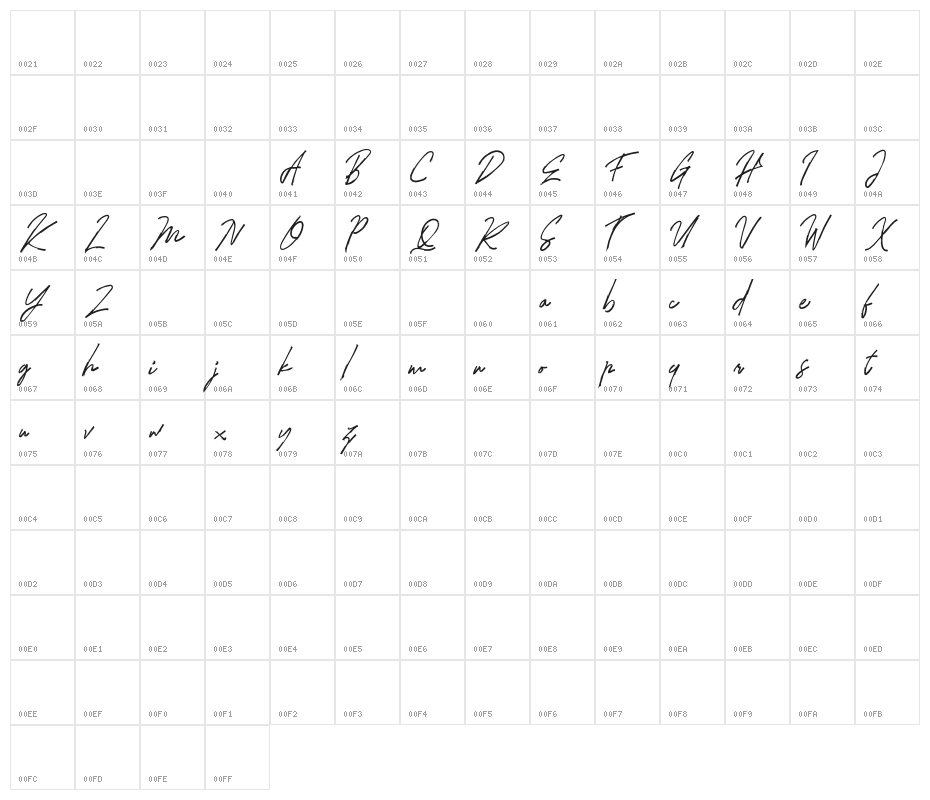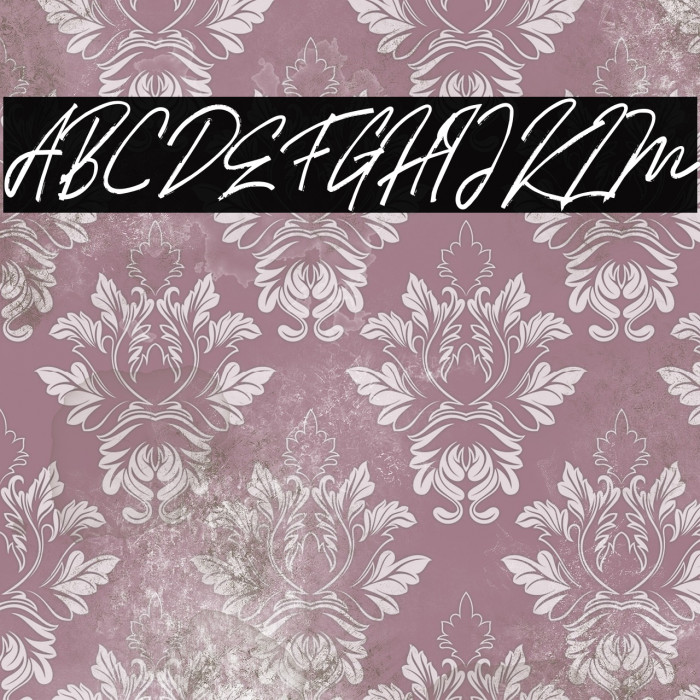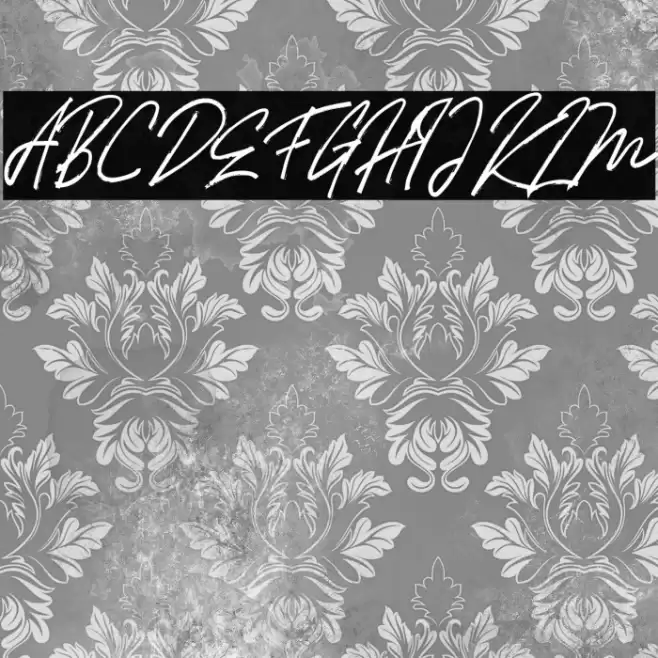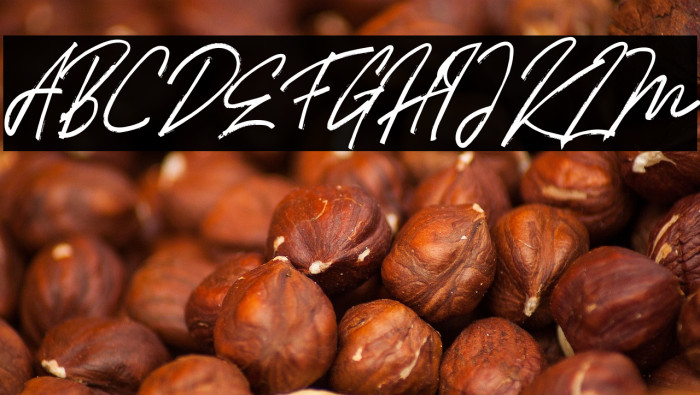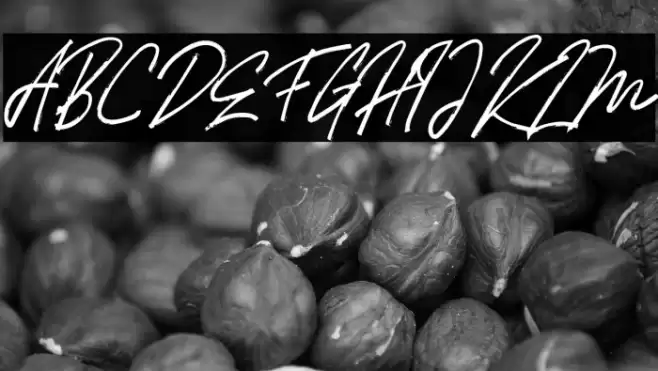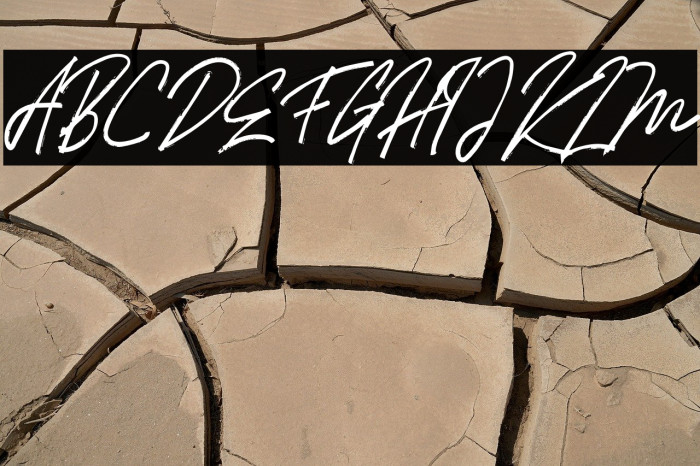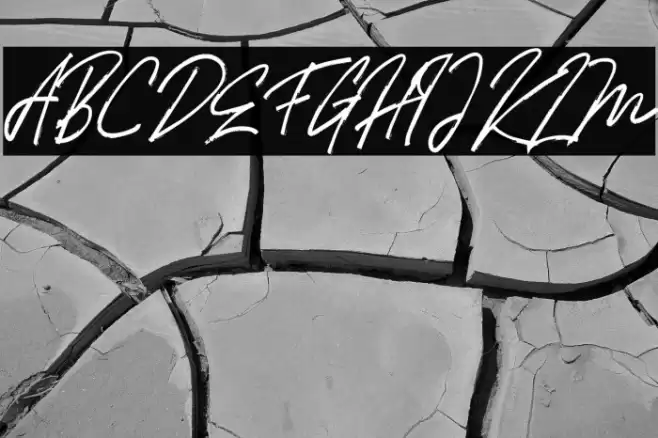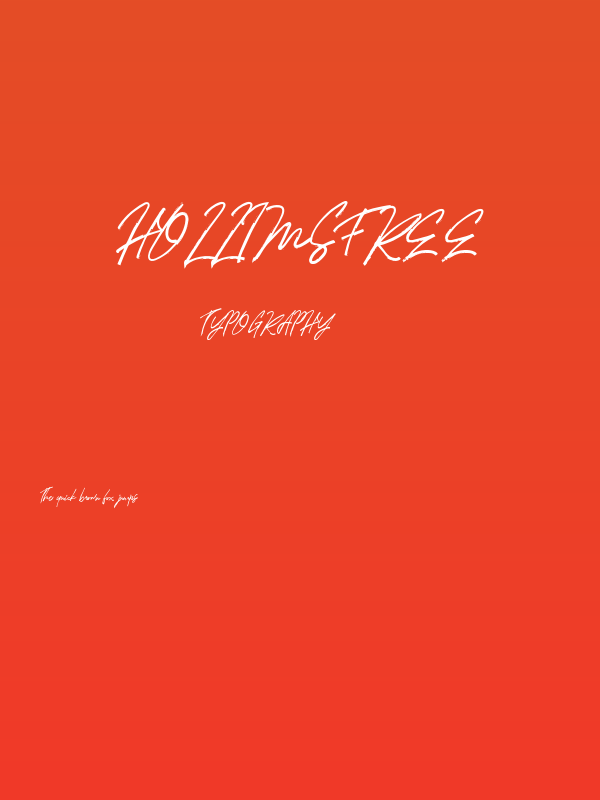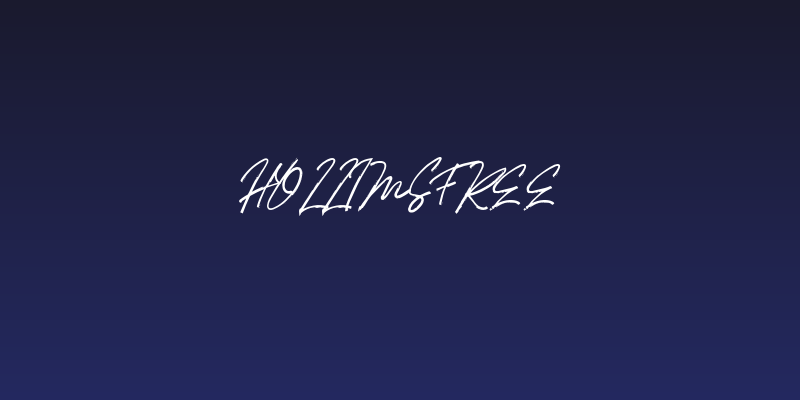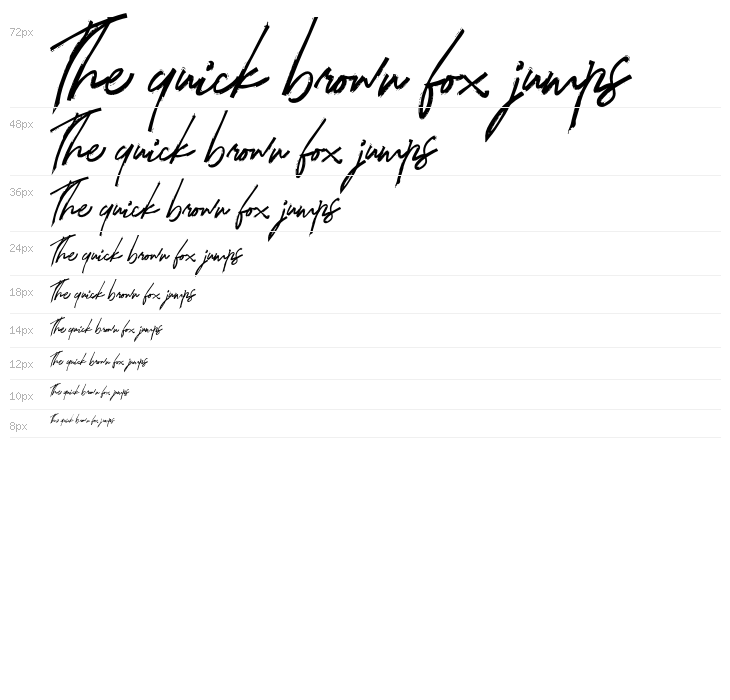
HollimsFREE Font
HollimsFREE Description
This font exudes a dynamic and expressive style, characterized by its fluid, cursive script that mimics natural handwriting. The letters are connected, creating a seamless flow that enhances its elegant and personal touch. The strokes vary in thickness, adding a sense of movement and energy. This font is ideal for projects that require a personal or artistic flair, such as invitations, greeting cards, or branding materials. Its unique style captures attention while maintaining readability, making it versatile for various creative applications.
| Proposed Projects | Ideal for invitations, greeting cards, branding, and artistic projects. |